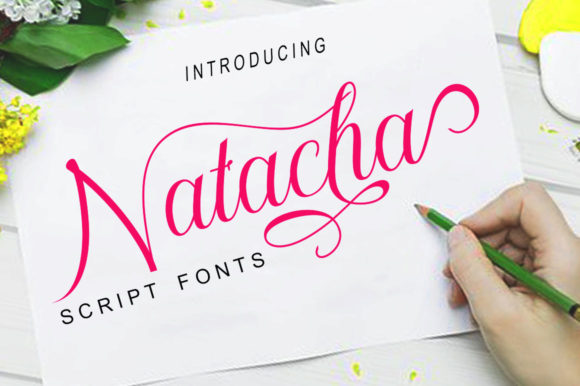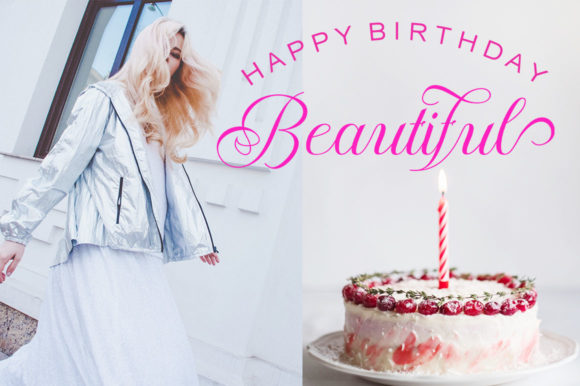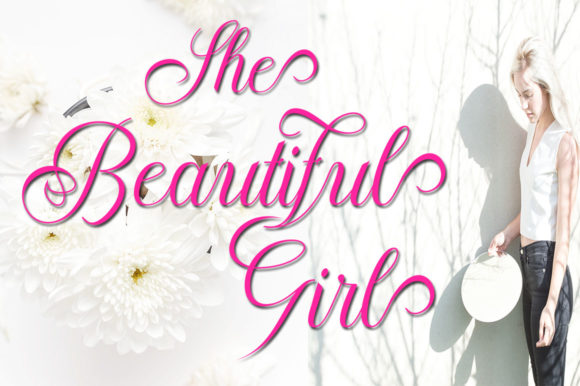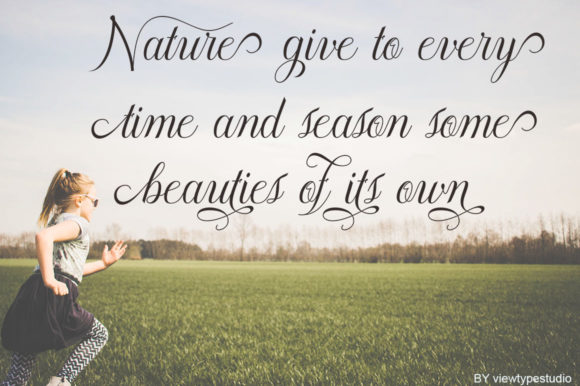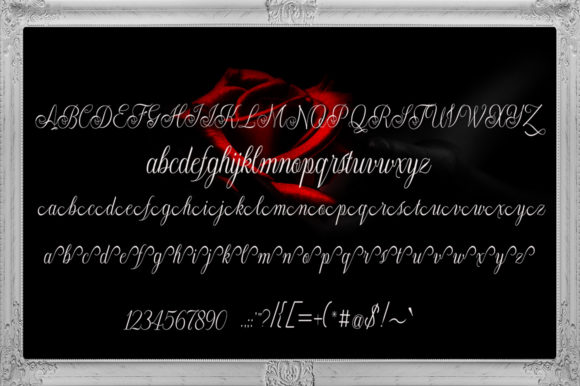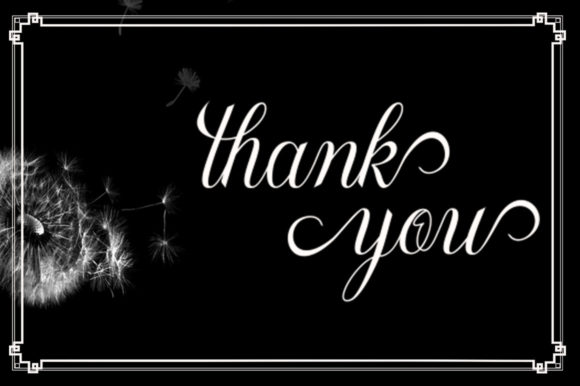
Natacha Font
About Natacha Font
Natacha is a lovely modern calligraphy typeface with a romantic touch. Use it for any design idea that needs an authentic feel to it!